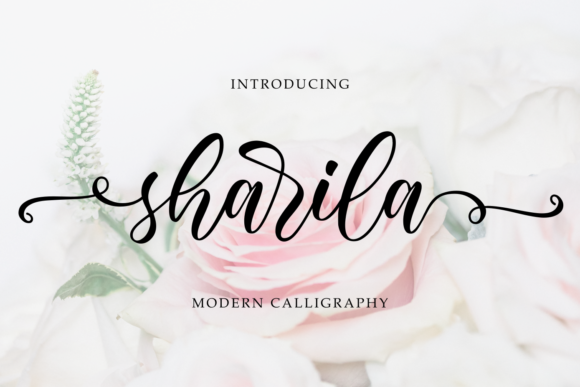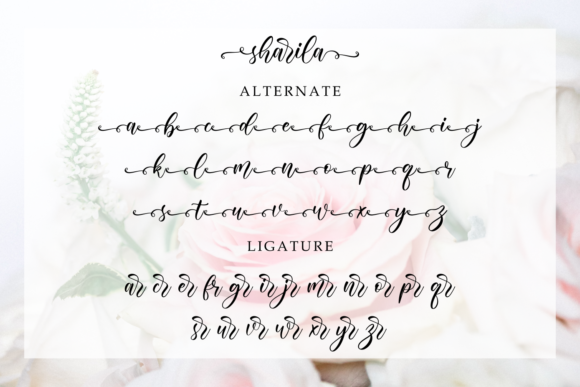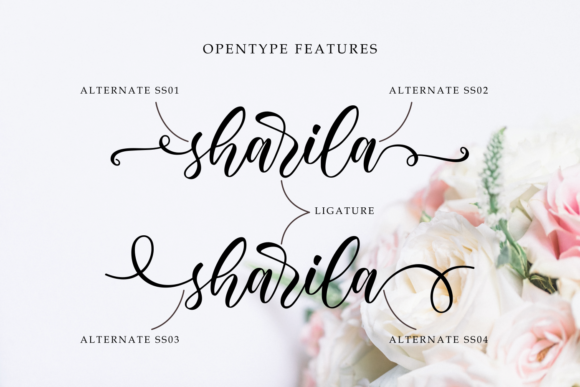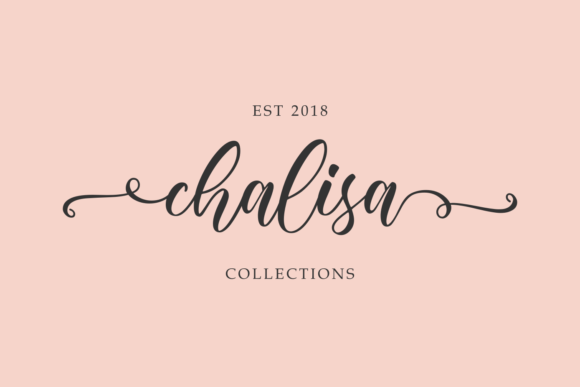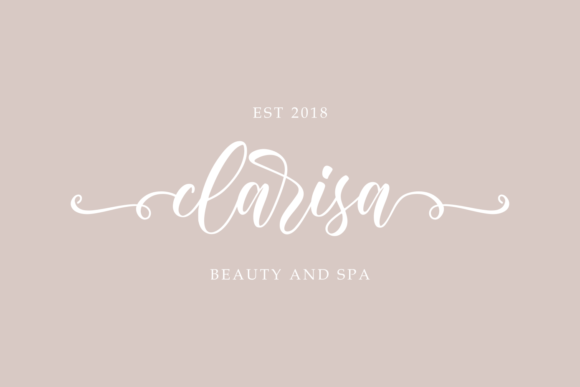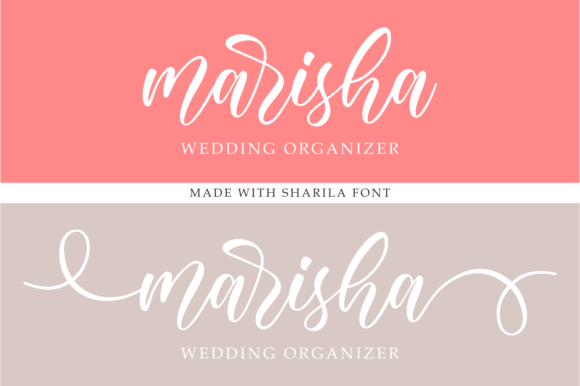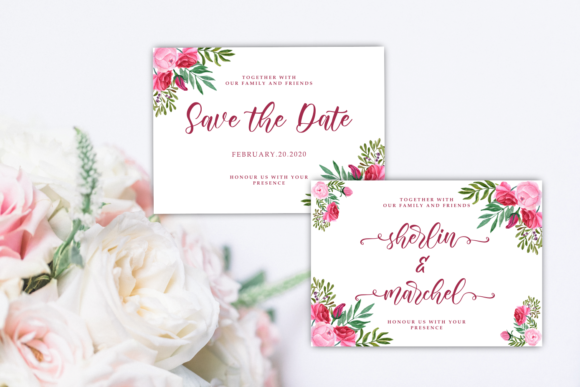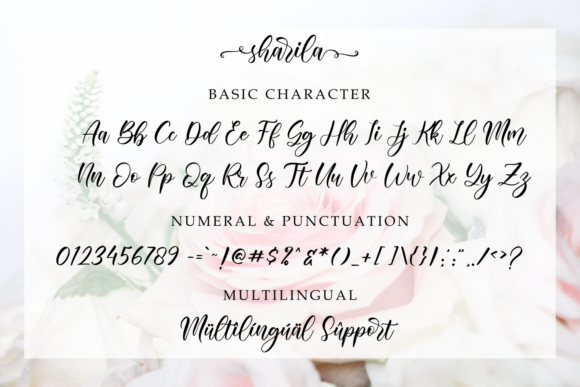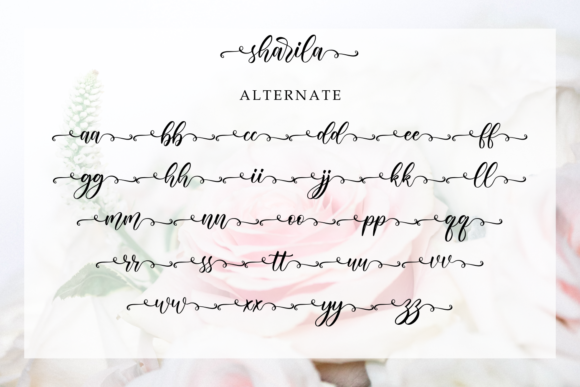
Sharila Font
About Sharila Font
Sharila is a lovely modern calligraphy font. This versatile script font has a wide range of applications ranging from greeting cards to headlines and is guaranteed to add a romantic feel to your next project.